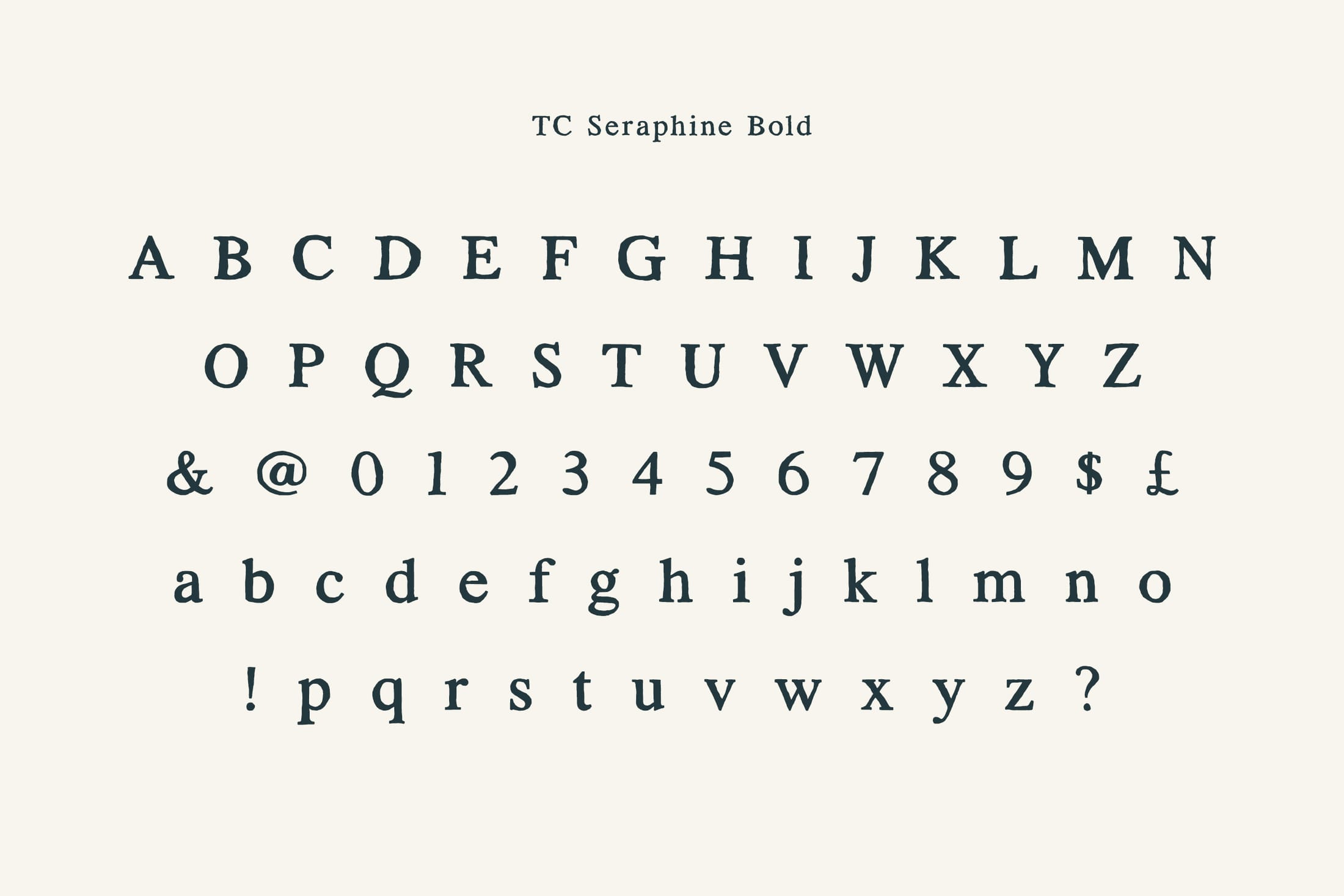
Beyond Times New Roman: Safe Fonts for Academic Papers
For decades, Times New Roman has been the undisputed king of academic typography. It is the safe harbor for everything from freshman English composition to doctoral dissertations. However, sticking strictly to this default can sometimes work against you. Designed for narrow newspaper columns in the 1930s, it is not optimized for double-spaced A4 pages or high-resolution monitors. Today, other "safe" fonts command respect while offering superior readability.
The Psychology of Legibility
Typography is not just about aesthetics; it is about cognitive load. "Legibility" refers to how easy it is to distinguish one letter from another, while "readability" is about how easily the eye flows across lines of text. A font with poor readability forces the professor's brain to work harder just to process the visual information, leaving less cognitive energy for your actual arguments.
This is where the "Serif vs. Sans Serif" debate enters the academic sphere.
• Serif Fonts: These have small feet or lines attached to the ends of strokes (like Times New Roman). They are traditionally viewed as more formal, authoritative, and easier to read in printed long-form text because the feet guide the eye horizontally along the line.
• Sans Serif Fonts: These lack the feet (like Arial). They are often considered cleaner and more modern, and they are generally easier to read on digital screens
Seraphine Serif Font Family - Tom Chalky
The Top Serif Contenders
If you want to maintain the classic academic look but want something more sophisticated than the default, two primary options are universally accepted.
Garamond is often cited by designers and publishers as one of the most elegant typefaces available. It is lighter and airier than Times New Roman, giving your page a more refined, literary feel. Because the characters are slightly smaller, it often allows you to fit more text on a page without it feeling cluttered. It suggests a level of sophistication and is a favorite in humanities departments.
Georgia was designed specifically for screen readability. It has a larger "x-height" (the height of lowercase letters like a, c, and x) than Times New Roman, making it feel open and friendly. If you know your professor will be grading your paper on a laptop or tablet, which is increasingly common, Georgia is arguably the best tactical choice. It retains the formality of a serif but is optimized for digital display on a pixel screen.
The Modern Approach: Sans Serif
For years, sans-serif fonts were forbidden in strict academic circles, but that has changed. The APA (American Psychological Association) 7th edition manual now explicitly permits fonts like Calibri, Arial, and Lucida Sans Unicode.
Practical Rules for Switching
Before you highlight your entire document and hit "change," you must verify the specific constraints of your assignment. While most professors are reasonable, some are traditionalists who view anything other than Times New Roman 12pt as a deviation from the rules.
Follow this simple checklist before submitting:
1. Check the Syllabus: Does it explicitly state "Times New Roman only"? If it says "standard font," you have wiggle room.
2. Size Matters: Not all 12pt fonts are equal. Garamond is naturally smaller, so you might need to bump it to 13pt to match the physical size of Times New Roman. Conversely, Arial is large, so 11pt is often the standard equivalent.
3. Black Ink Only: Never experiment with color. The font style can change, but the text color must remain #000000.
Conclusion
Your goal is to present your hard work in the best possible light. While Times New Roman is never a wrong choice, it is rarely the best choice for visual clarity. By switching to a robust alternative like Georgia for screen reading or Garamond for printed papers, you subtly enhance the presentation of your work. You are making it easier for your professor to say "yes" to your arguments by making them effortless to read.